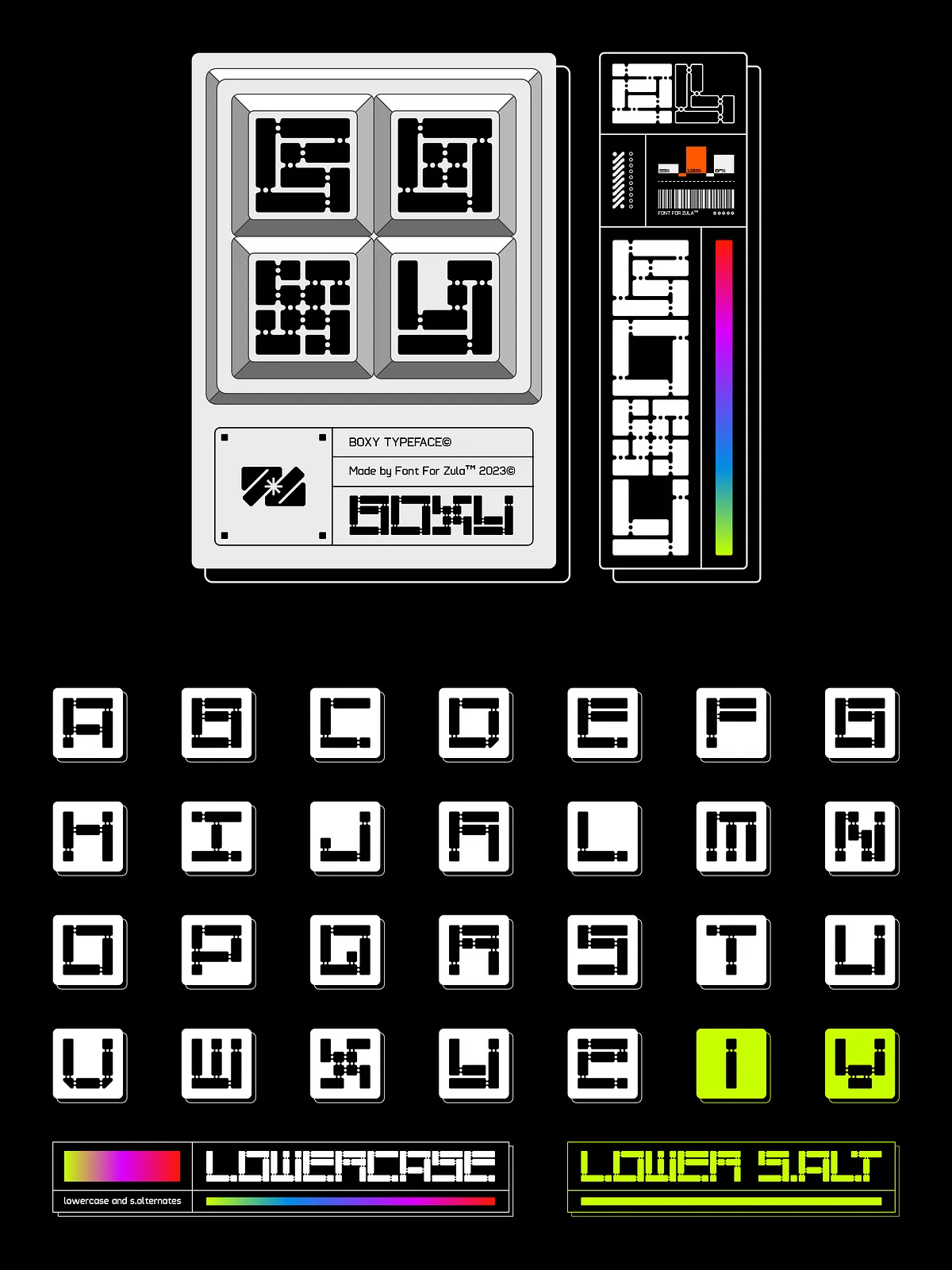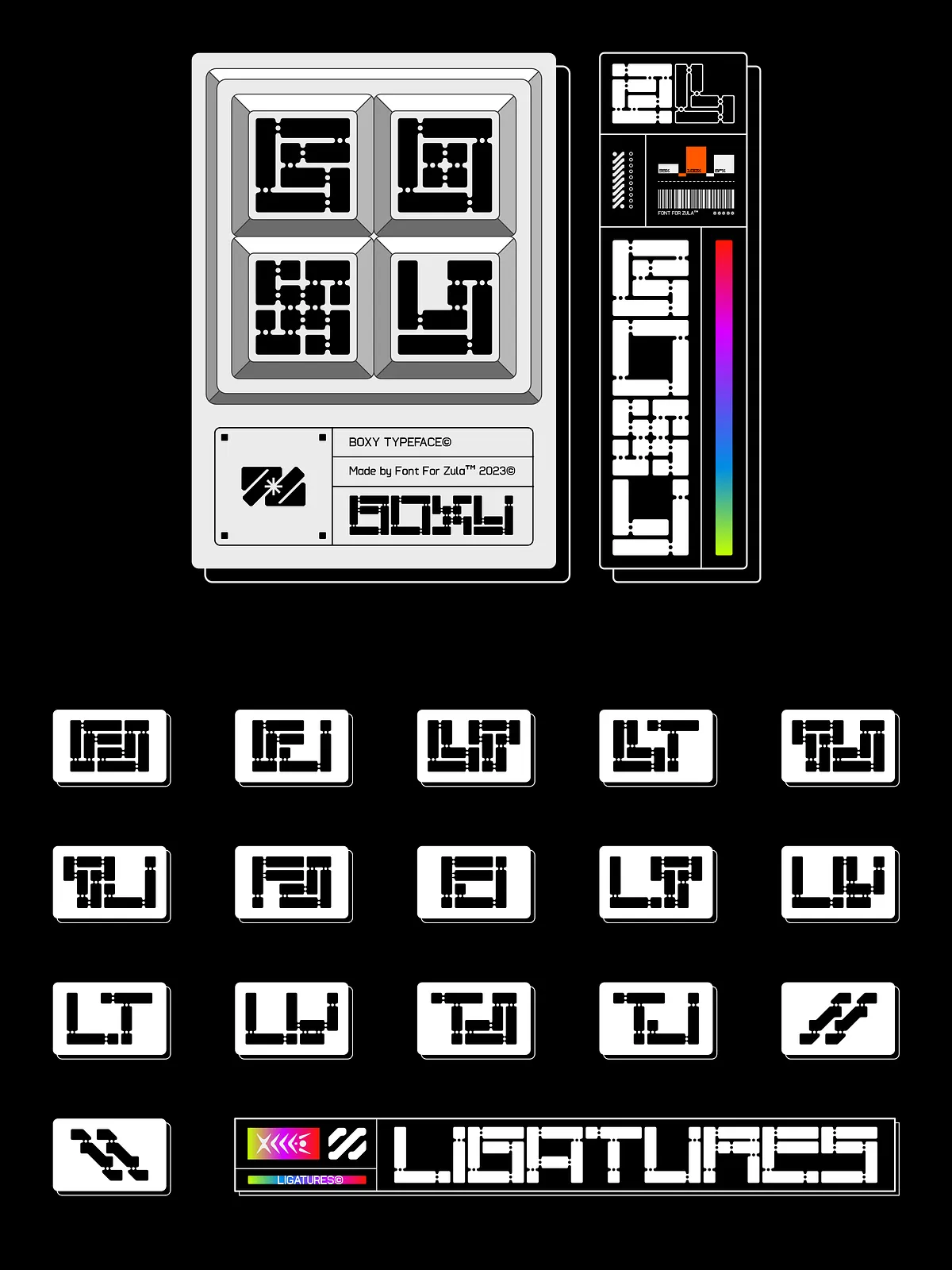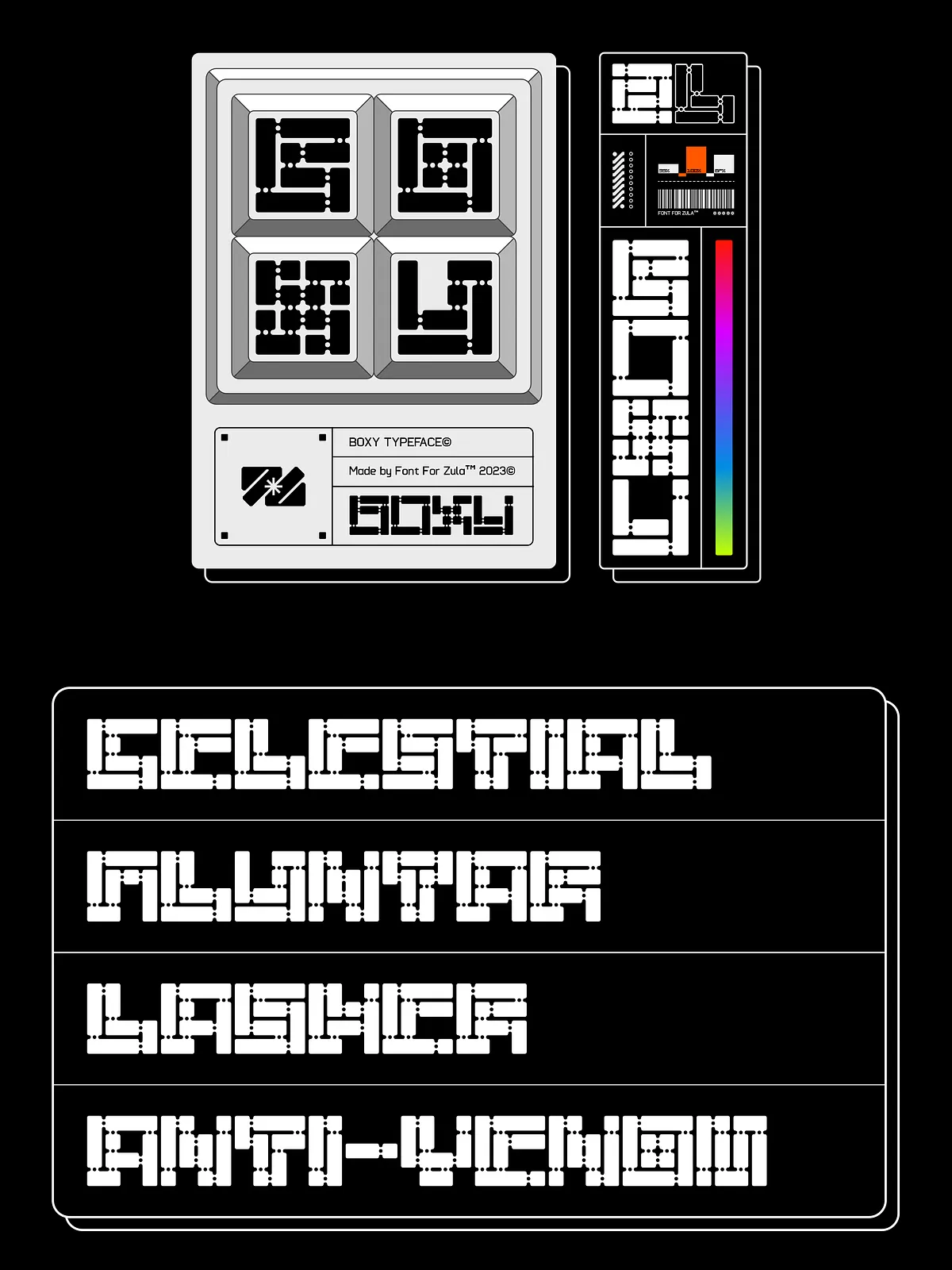
Step into a new era of typographic strength with Boxy, a striking monospaced typeface engineered for impact. Designed with a bold, square-based aesthetic that literally embodies its name, Boxy transforms every character into a visual anchor. This isn’t just a font—it’s a statement of modern precision, built for projects that demand attention, clarity, and a distinctive personality.
Each letterform in Boxy features uniquely crafted accent joints—sharp, geometric transitions that add visual intrigue and structural character. These design details set Boxy apart from generic monospaced fonts, giving your content a one-of-a-kind look that stands out in branding, UI elements, code samples, and editorial layouts.
Powerful Features for Creative and Technical Projects
Boxy is more than just a visual standout—it’s a fully functional typeface built for real-world application across diverse projects. Whether you’re designing a futuristic interface, crafting a coding tutorial, developing a brand identity, or creating visual storytelling content, Boxy delivers a robust toolkit of typographic features.
• What’s Included in the Boxy Typeface Family
- 26 Uppercase Letters: Full coverage for headings, acronyms, titles, and branding.
- 26 Lowercase Letters: Seamless integration in body text, captions, and narrative content.
- 7 Stylistic Alternates: Replace standard characters with unique variations for dynamic text layouts and creative emphasis.
- 10 Base Numerals: Clear and consistent digits for data, timelines, and numeric sequences.
- 2 Numeral Alternates: Special variants for enhanced visual diversity and stylistic control.
- 16 Ligatures: Eliminate awkward spacing between common letter pairs (e.g.,
ff,fl,ffi), ensuring smooth, professional typography. - Full Punctuation Set: Includes standard and typographic punctuation for seamless integration in written content.